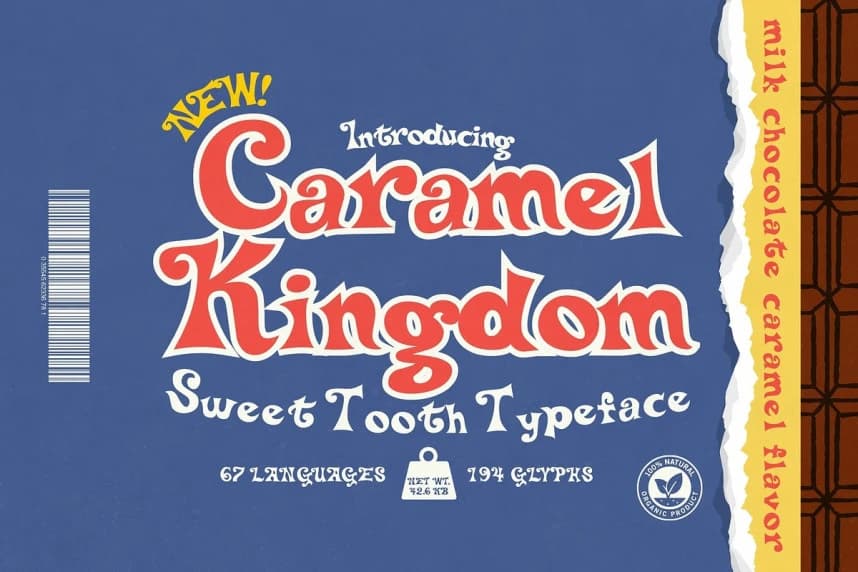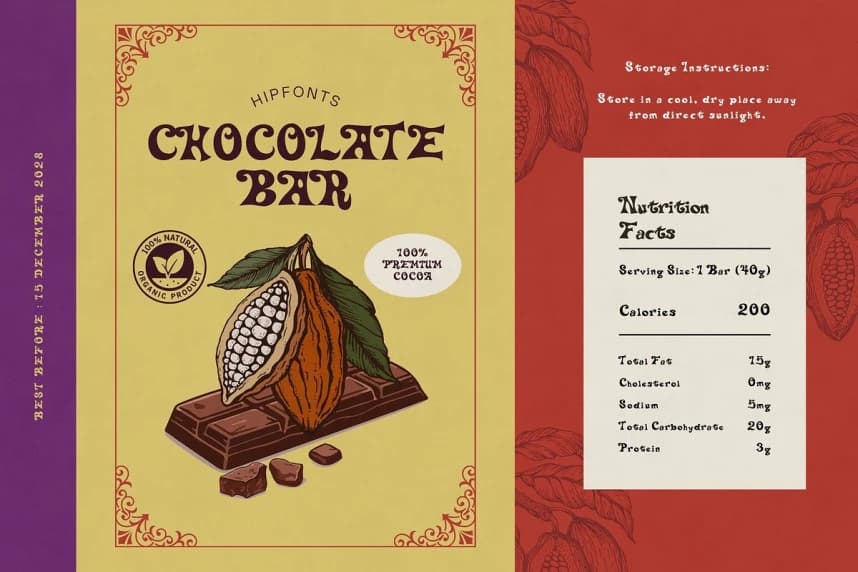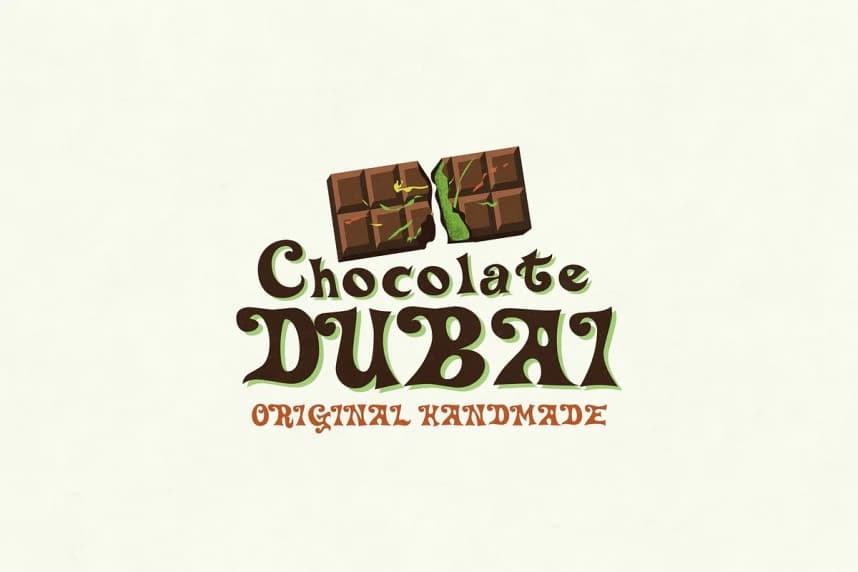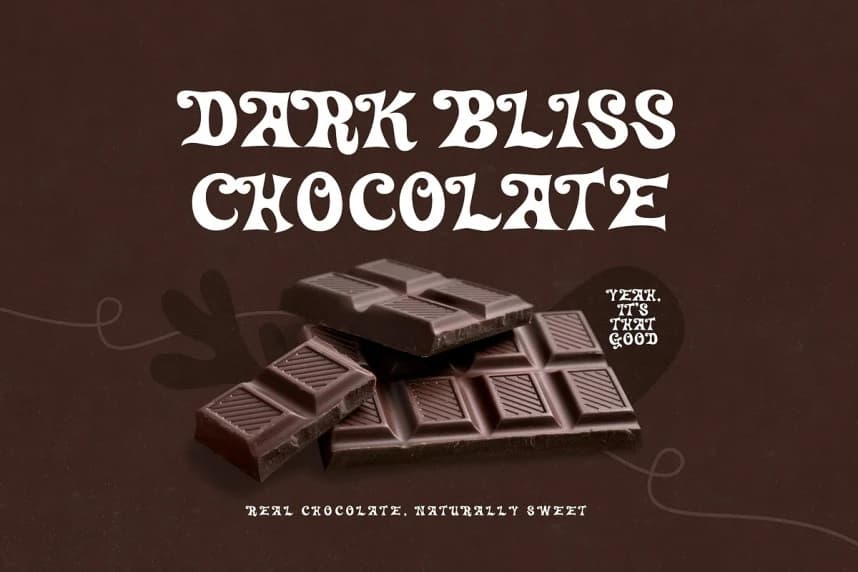
Caramel Kingdom Font
Caramel Kingdom Font - This whimsical and playful serif font brings a magical, fun-filled charm to any project, making it perfect for candy, chocolate, and sweets branding, packaging, and promotional materials.